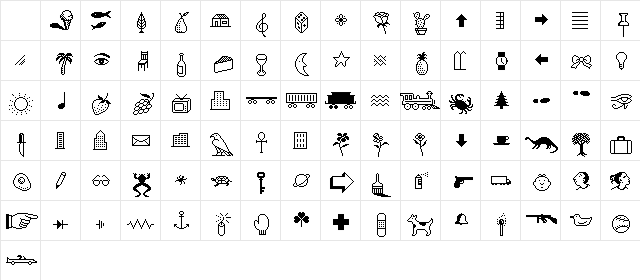
Complete Classics Cairo glyph index. Displaying only characters natively supported by Classics Cairo font.
Classics wears its vintage influences proudly, with letterforms that recall mid-century signage, classic packaging, and nostalgia-driven design.